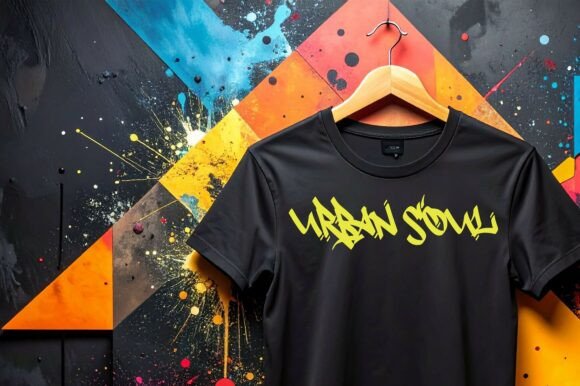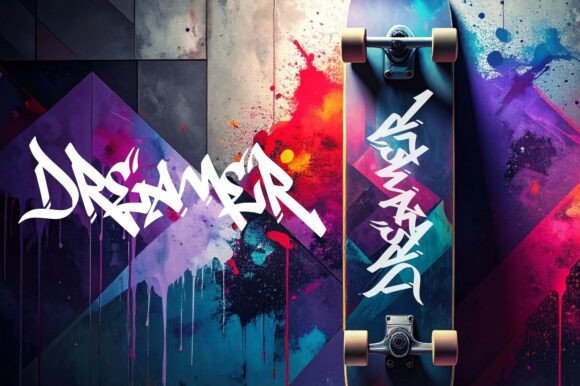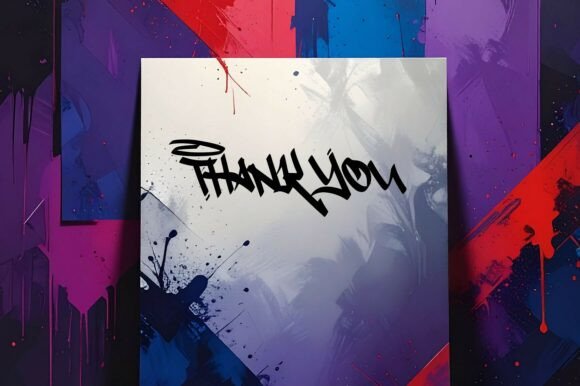
Discover the Edgy Urban Flair of “Another Tag” Font
In the realm of typography, few fonts capture the essence of urban street art as vividly as “Another Tag”. This graffiti-inspired typeface is a bold, dynamic, and highly stylized addition to the world of fonts, offering designers a unique tool to infuse their projects with a raw, rebellious energy. With its sharp edges, angular letterforms, and expressive flow, “Another Tag” is the perfect choice for projects that demand a gritty, contemporary urban aesthetic.
The Urban Inspiration Behind “Another Tag”
The font “Another Tag” draws its inspiration directly from the streets, mimicking the quick, deliberate strokes of a marker or spray can. Each character is crafted to reflect the spontaneous, unbridled nature of graffiti art, with bold lines and dynamic flourishes that give the font its distinctive, edgy feel. The letters often overlap or connect in unconventional ways, creating a sense of movement and rebellion that is hard to ignore.
Key Features of “Another Tag” Font
- Bold and Angular Letterforms: The font features sharp, angular characters that command attention and exude confidence.
- Dynamic Flourishes: Each letter is adorned with dynamic flourishes that enhance the font’s energetic and spontaneous feel.
- Urban Aesthetic: The overall design of “Another Tag” captures the raw, unpolished energy of street art, making it perfect for urban-inspired projects.
- Expressive Flow: The font’s design mimics the fluid, expressive strokes of graffiti art, giving it a unique, hand-crafted feel.
Ideal Uses for “Another Tag” Font
“Another Tag” is exceptionally well-suited for a variety of design projects that require a gritty, rebellious, and contemporary urban feel. Some of the ideal uses for this font include:
- Streetwear Branding: The font’s urban, edgy vibe makes it a perfect match for streetwear brands looking to make a bold statement.
- Music Album Covers: Particularly for genres like hip-hop, punk, or alternative, where the font’s rebellious energy aligns perfectly with the music’s attitude.
- Event Posters: For concerts, festivals, or any event that celebrates urban culture, “Another Tag” can add an authentic, eye-catching element.
- Video Game Titles: Games with an urban setting or an edgy theme can benefit from the font’s dynamic, attention-grabbing style.
- Graffiti and Street Art Projects: For any project that aims to celebrate or represent street art, “Another Tag” offers a stylized yet authentic typographic solution.
What Sets “Another Tag” Apart
In a sea of fonts, “Another Tag” stands out due to its distinctive, unbridled style and its ability to instantly communicate a powerful, street-wise attitude. Unlike more traditional or conservative typefaces, this font is designed to push boundaries and challenge the status quo, making it a compelling choice for designers who want their work to stand out.
Tips for Using “Another Tag” Effectively
- Pair with Contrasting Fonts: To maximize impact, pair “Another Tag” with simpler, more neutral fonts to create visual contrast.
- Experiment with Colors: Take advantage of the font’s urban vibe by experimenting with bold, vibrant colors that reflect the energy of street art.
- Consider Context: Ensure that the use of “Another Tag” aligns with the project’s overall tone and audience to maintain authenticity.
“Another Tag” font is a vibrant and powerful tool for designers looking to infuse their projects with an urban, rebellious spirit. Its unique blend of boldness, dynamism, and street art inspiration makes it an invaluable asset for a wide range of applications, from streetwear branding to video game titles. By incorporating “Another Tag” into their designs, creatives can instantly convey a sense of energy, rebellion, and urban flair, making their work stand out in a crowded creative landscape.